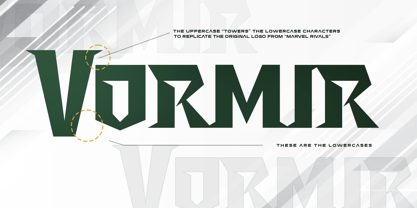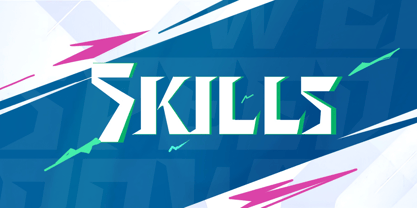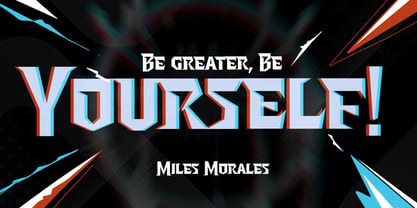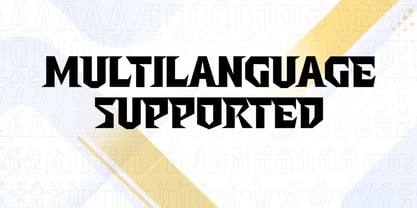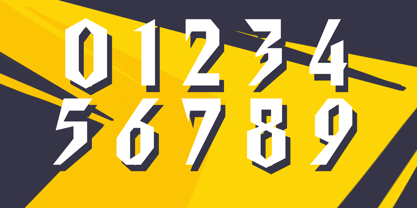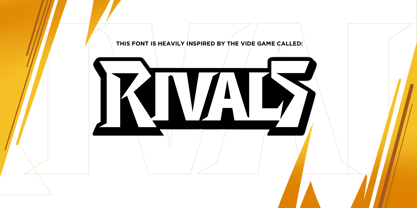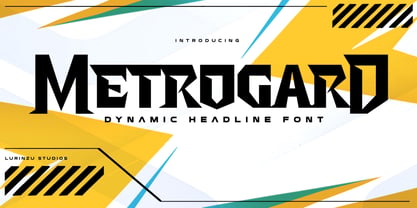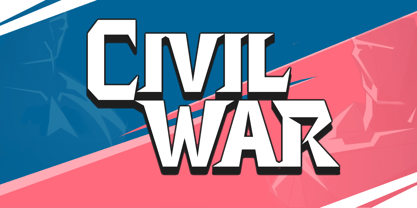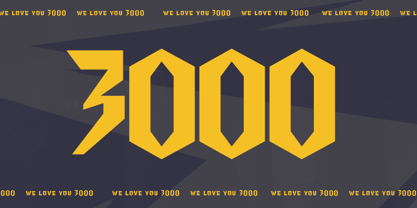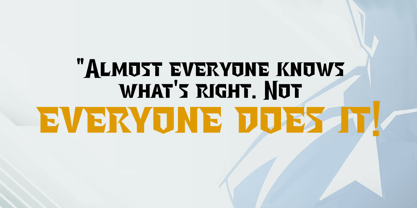
Metrogard
Die Schriftfamilie Metrogard wurde von Lorenzo Gabriel Martinez entworfen und von Lurinzu Studios veröffentlicht. Metrogard enthält 1 Stile. Mehr über diese Familie
"Metrogard" is a dynamic headline font that is heavily inspired by/ referenced to the logo of the video game called "Marvel Rivals"
Due to the dynamic size of Uppercase letters to lowercase letters, it is best to only use this font for capturing viewers' attention on large-scale media such as posters, banners, social media thumbnails, shirts, and so on.
Designer: Lorenzo Gabriel Martinez
Foundry: Lurinzu Studios